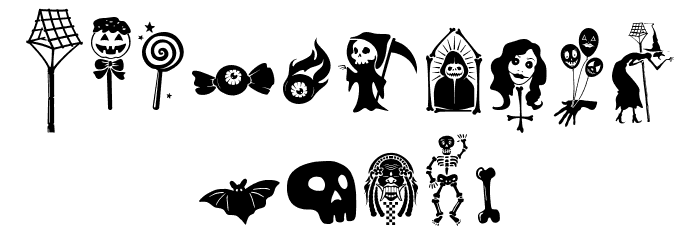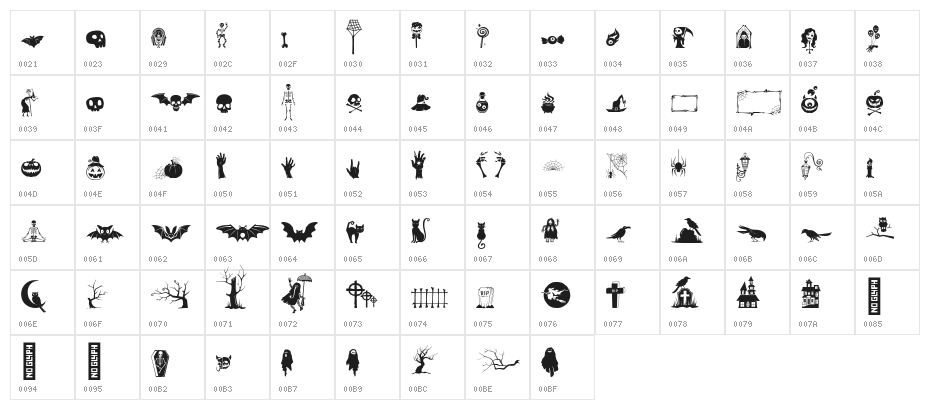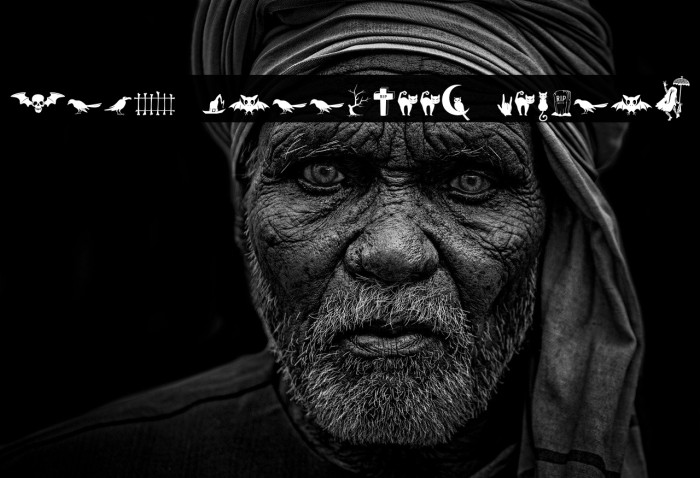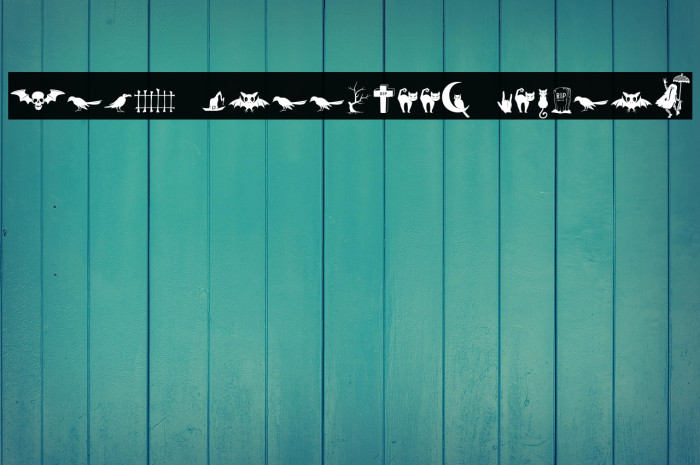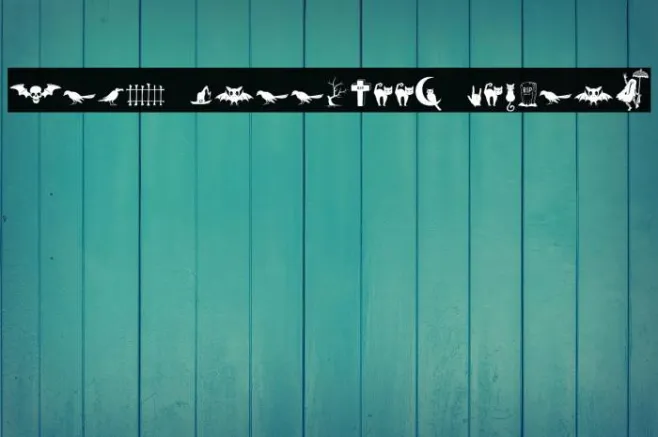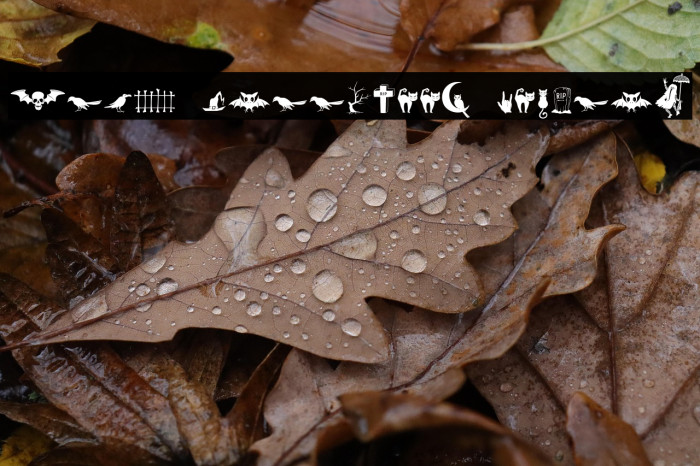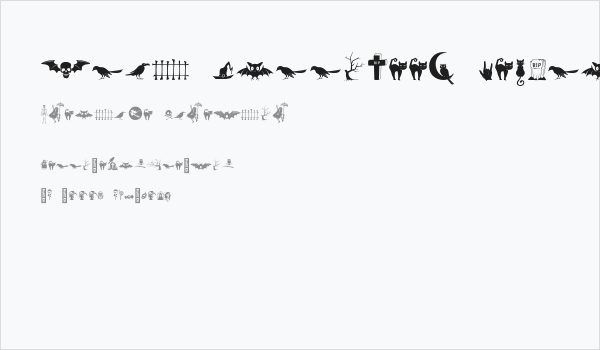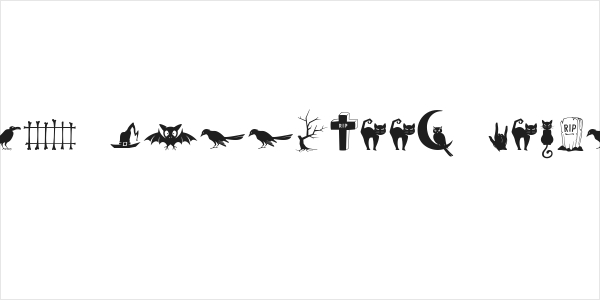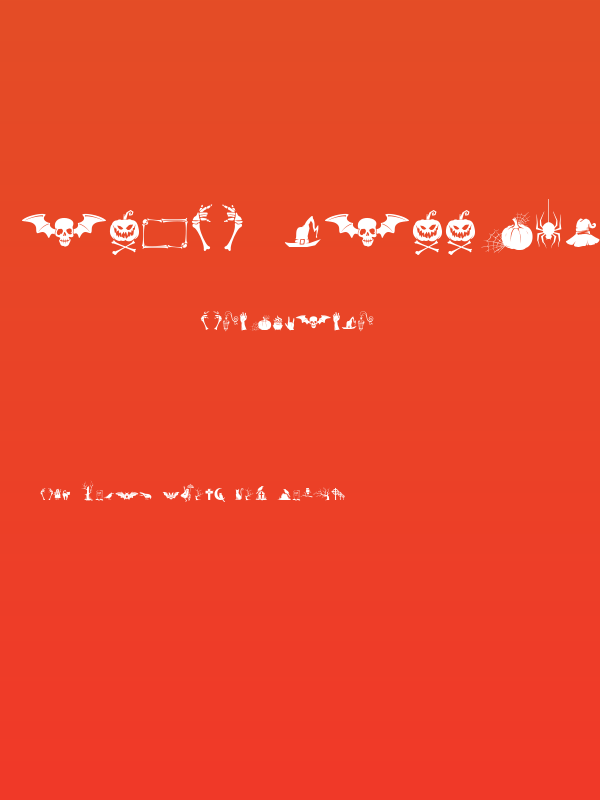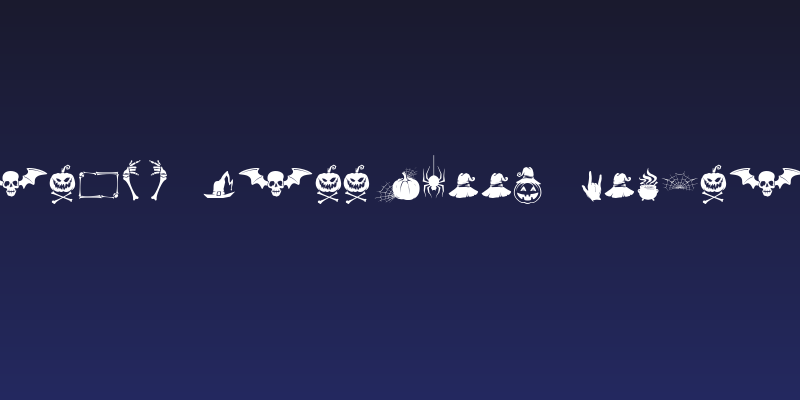
Alit Halloween Regular Font
Alit Halloween Regular Description
A decorative dingbat font featuring a wide variety of Halloween-themed silhouettes, including bats, skeletons, pumpkins, witches, haunted houses, gravestones, and other spooky icons. The glyphs are bold, high-contrast, and rendered in solid black, making them highly visible and suitable for thematic designs.
| Overall Style | Decorative, Thematic, Playful |
| Use Case | Logos, Headlines, Themed graphics, Event materials |
| Proposed Projects | Halloween party invitations, event posters, themed social media graphics, children's activity sheets, seasonal packaging, and decorative banners. |